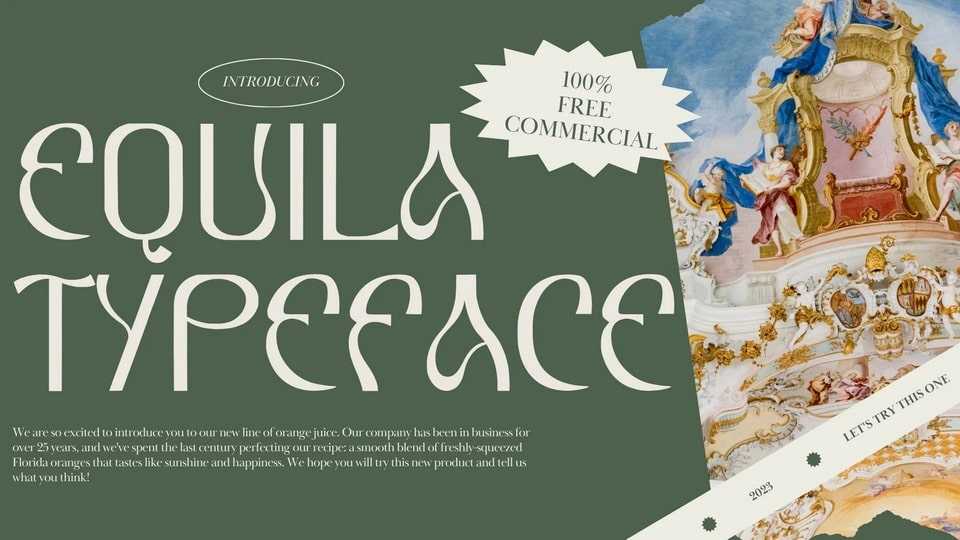
Download Equilla font, a versatile, bold and unique serif typeface. With a combination of high contrast and brutalism, Equilla font has a trendy look, perfect for any project.
Designer: Arendx Studio